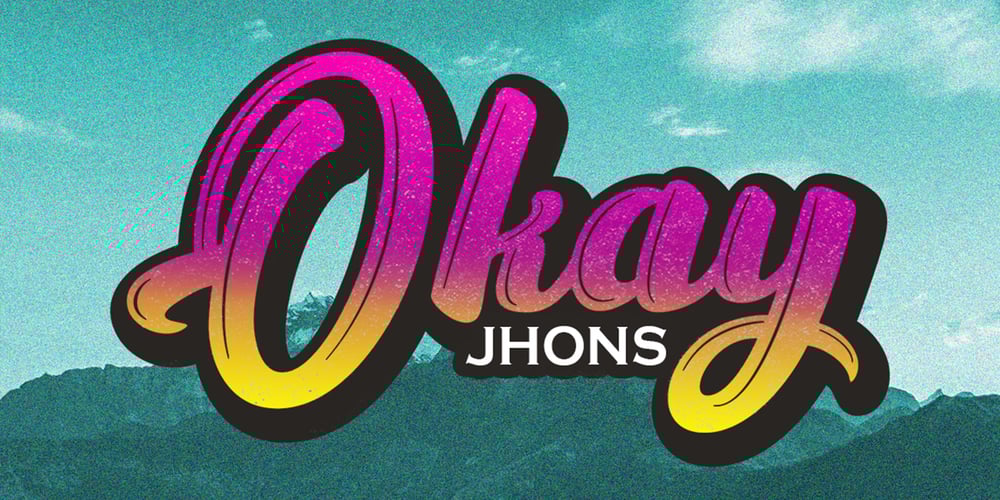
England Script Font Family was designed by Teuku Rinaldi Novianda and published by Max.co Studio. England Script contains 2 styles and family package options. England Script is a romantic typeface, which is elegant, fun and vintage. It can be used for various purposes such as logos, wedding invitation, t-shirt, letterhead, signage, news, posters, badges etc. England Script features 500+ glyphs and extruded font, alternate characters, ligatures, swash and multiple language support: ŠÀÁÂÃÄÅÆÇÈÉÊËÌÍÎÏŸŽÐÑÒÓÔÕÖØÙÚÛÜÝßàáâãäåæçèéêëìíîïñòóôõöøùúûêýÿŒœšž To enable the OpenType Stylistic alternates, you need a program that supports OpenType features such as Adobe Illustrator CS, Adobe Indesign & CorelDraw X6-X7. How to get access alternate glyphs from open type fonts: http://youtu.be/iptSFA7feQ0 There are additional ways to access alternates/swashes, using Character Map (Windows), Nexus Font (Windows), Font Book (Mac) or a software program such as PopChar (for Windows and Mac). How to access all alternative characters, using Windows Character Map with Photoshop: https://www.youtube.com/watch?v=Go9vacoYmBw Need help? If you need help or advice, please contact me. Thank you!